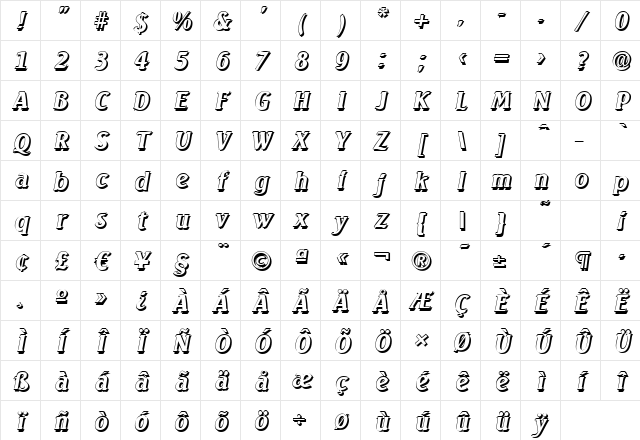
AbelBeckerShadow BoldItalic
Complete AbelBeckerShadow BoldItalic glyph index. Displaying only characters natively supported by AbelBeckerShadow BoldItalic font.
Design Context for AbelBeckerShadow
AbelBeckerShadow is built around its visual character rather than neutral utility - its distinctive forms are designed to make an impression at display sizes. The slanted form adds forward momentum and visual energy. Its bold stroke weight gives it real presence on the page.
Font Pairing: Pair with a clean neutral sans-serif for body copy to let AbelBeckerShadow's character lead without overwhelming the composition.
Pro Tip: Use AbelBeckerShadow exclusively at display sizes - it was designed to be seen, not read at length. Let a neutral companion handle body copy.